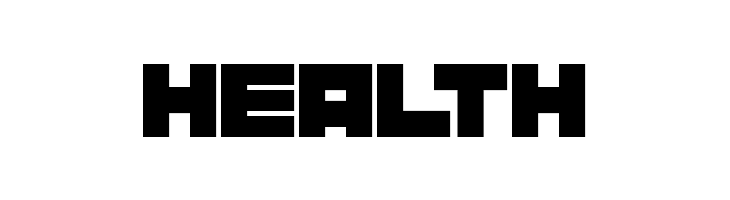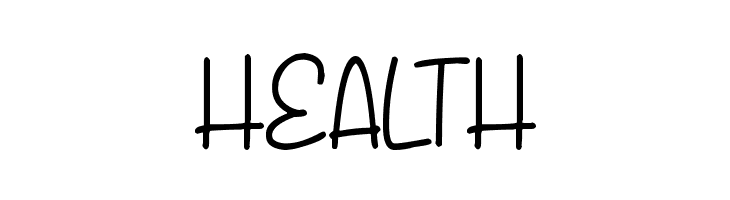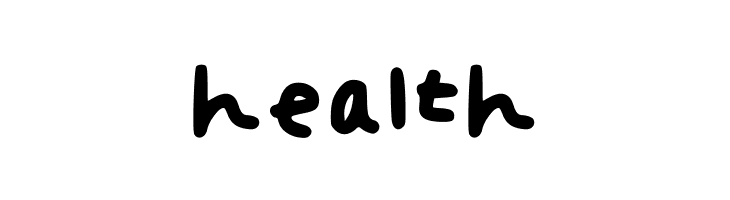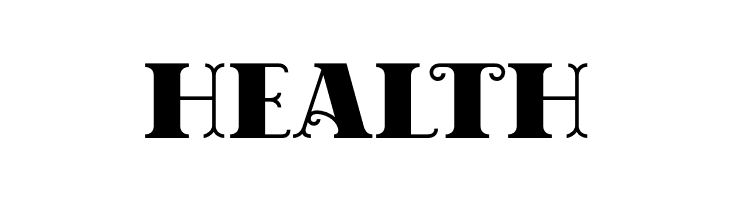
( tricky )
A decorative font made of star shapes, perfect for playful designs.
( Betwixt Designs - betwixtdesigns.com )
A flowing, cursive font with elegant curves and a handwritten aesthetic.
( Chequered Ink - chequered.ink/ )
A bold, geometric font with a modern, edgy style.
( Darrell Flood )
A playful, handwritten font with a casual and friendly appearance.
( Lara Russell )
A playful, handwritten font with bold, rounded letters and a casual style.
( Mindtype Co. - Putra Khan - creativemarket.com/putra_khan?u=putra_khan )
A dynamic and expressive script font with fluid, sweeping strokes.
( Natasha Cuddihy )
A playful, hand-drawn font with artistic flair and expressive characters.
( Roland Huse Design - Roland Huse - rolandhuse.com )
A bold, decorative font with intricate patterns and a vintage flair.